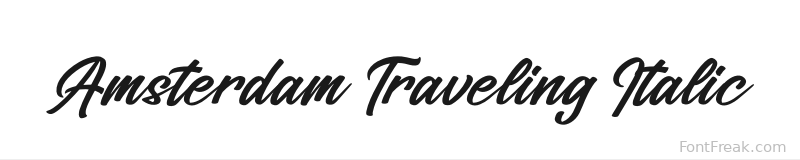
Amsterdam Traveling Italic
Amsterdam Traveling Italic by Perspectype Studio is a stunning italic script font that embodies a sense of movement and fluidity. Released in 2021, this freeware typeface features elegant, sweeping curves and a dynamic stroke that makes it a perfect choice for projects requiring a touch of sophistication and creativity. The visual characteristics of this font include a moderate contrast between thick and thin strokes, providing a sense of depth and dimension. The generous spacing between letters enhances readability while maintaining an artistic flair, making it appealing for a variety of uses.
This font is ideal for wedding invitations, where its romantic style can add a personal touch to special occasions. Additionally, it works beautifully for travel-themed advertisements and brochures, capturing the essence of adventure and exploration. Restaurant menus can benefit from the charm of Amsterdam Traveling Italic, lending an inviting atmosphere to the dining experience. It is also well-suited for social media graphics, allowing content creators to present their messages in a visually engaging manner.
Targeted at graphic designers, small business owners, and content creators, Amsterdam Traveling Italic is versatile enough to complement various design aesthetics. Its unique style can elevate branding, making it a go-to choice for those looking to stand out.
What sets Amsterdam Traveling Italic apart is its ability to convey emotion and personality through typography. The flowing lines and graceful design evoke a sense of travel and discovery, making it a captivating choice for any project. For those interested in enhancing their design toolkit, the Amsterdam Traveling Italic font free download is a remarkable asset that promises to inspire creativity and elevate visual communication.